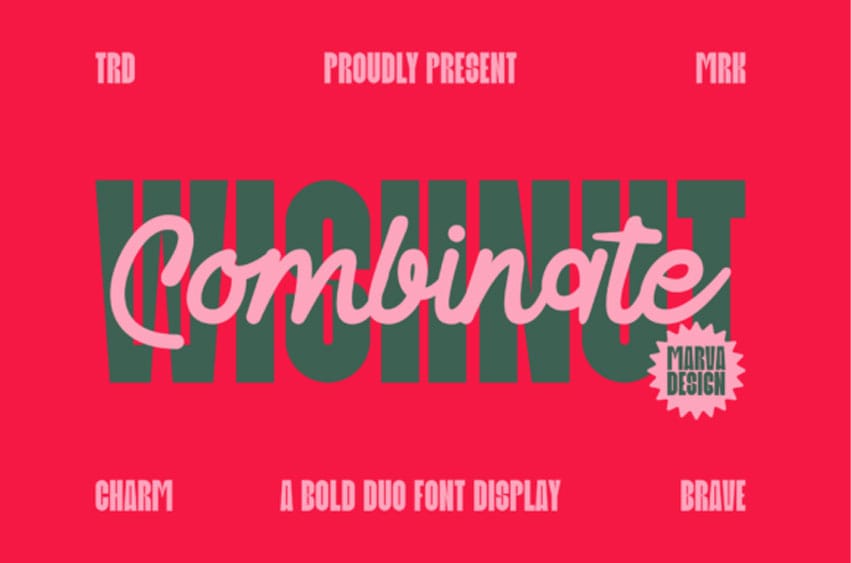
Wishnut Combinate Duo Font is a bold and expressive display font family designed to bring strong visual impact and playful personality into any creative project.
The typeface comes in three distinctive styles: Condensed, Condensed Italic, and Script, each crafted to complement one another through contrast and rhythm.
The Condensed style features tall, powerful letterforms with sharp vertical emphasis, making it perfect for headlines, posters, and striking typographic compositions. Its geometric structure and compact spacing create a solid, modern presence that commands attention.
The Condensed Italic variant introduces a subtle forward lean, adding motion and energy while maintaining the boldness of the original condensed styl,e ideal for dynamic layouts or expressive editorial design.
Accompanying these is the Script style, which brings a smooth, flowing handwritten aesthetic. Its organic curves, rounded terminals, and soft rhythm add warmth and charm, making it a perfect contrast to the heavy condensed forms.
Together, these three styles create a versatile duo-display system that blends strength with elegance. Wishnut is designed for branding, posters, editorial headlines, social media graphics, and any visual work that demands bold typography paired with expressive personality.
Wishnut Combinate is a dynamic, bold duo font display that expertly pairs a chunky, angular, all-caps sans-serif base (Wishnut) with a smooth, flowing, retro script overlay (Combinate), creating instant, attention-grabbing contrast.
The built-in balance between the bold duo font display ensures your creative titles and logotypes have depth and dynamic energy. Leverage the instant visual contrast of the Wishnut Combinate typeface to create truly memorable retro-modern designs that scream with confident, vibrant personality.